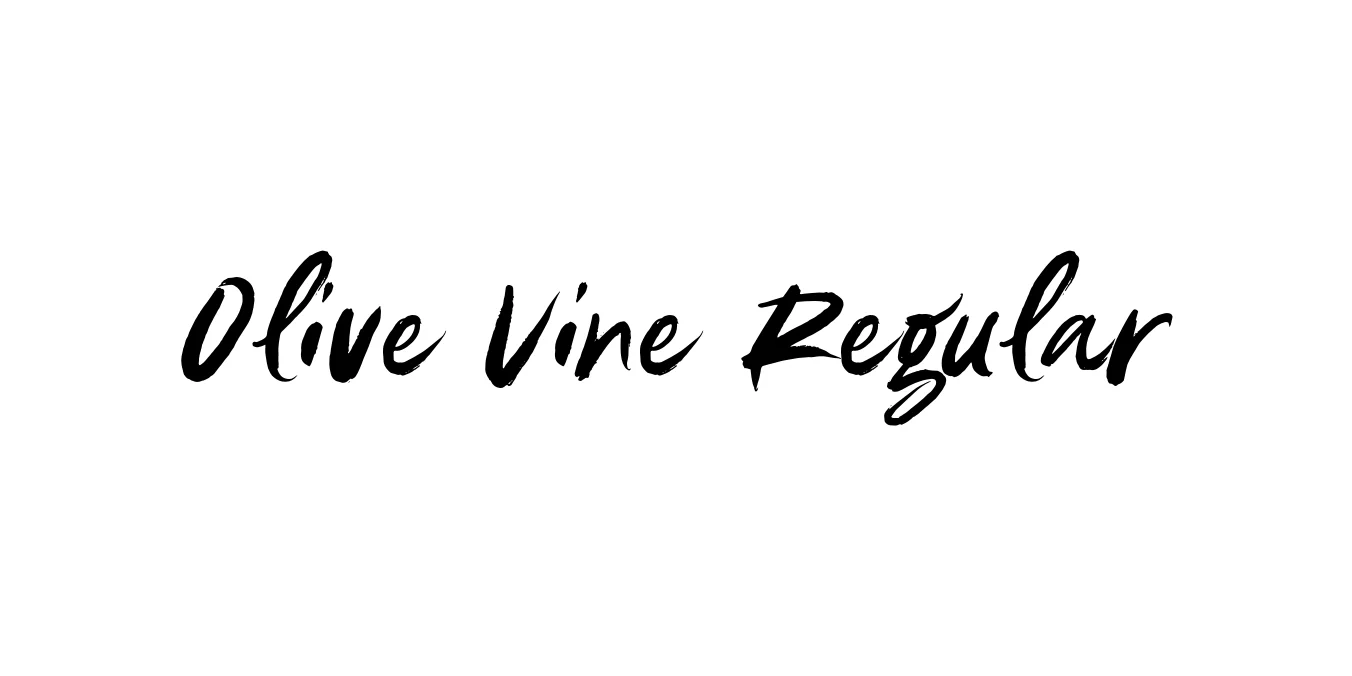
Olive Vine Regular
Designed by Dmitriy Chirkov (MediaLab)
Olive Vine Regular is a sophisticated hand-drawn script font designed to capture the essence of organic calligraphy. Created by Dmitriy Chirkov, this typeface features fluid strokes and an elegant rhythm that brings a personal, handcrafted touch to any creative project. Its natural flow and subtle variations make it ideal for designers looking to convey warmth, authenticity, and a sense of high-end craftsmanship.
The font is characterized by its versatile letterforms and rustic aesthetic, which bridges the gap between modern minimalism and traditional hand-lettering. It includes a variety of ligatures and decorative flourishes, ensuring that text looks bespoke and artistic. Whether used for luxury lifestyle branding or intimate wedding invitations, Olive Vine Regular remains a timeless choice for romantic and natural compositions.
Olive Vine Regular Best Uses
Perfect for invitations, RSVP cards, and envelopes with a romantic, hand-lettered feel.
Ideal for organic beauty products, florists, and boutique lifestyle logos.
Great for creating aesthetic quotes, Instagram stories, and lifestyle graphics.
Adds a handmade, artisanal touch to craft packaging and premium product labels.